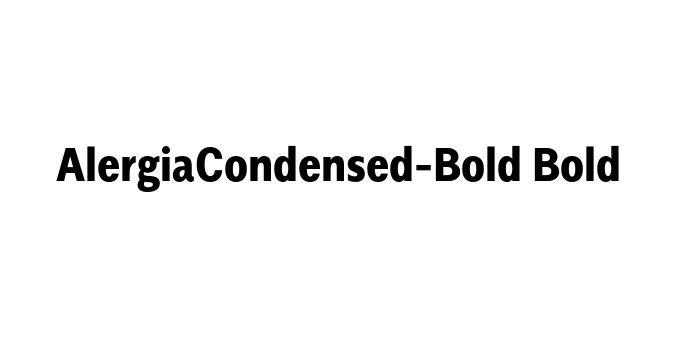
AlergiaCondensed-Bold Bold
Designed by Mateusz Machalski
Alergia Condensed Bold is a sophisticated sans-serif typeface crafted by the renowned designer Mateusz Machalski. As a key component of the expansive Alergia superfamily, this weight is characterized by its hybrid nature, blending geometric construction with subtle humanist influences. The Bold weight provides a robust visual density that ensures high visibility while maintaining the elegant, narrow proportions typical of condensed styles.
This font is specifically engineered for efficiency and impact in modern design environments. Its high-waisted capitals and distinct terminal cuts make it an exceptional choice for editorial design and high-end branding projects. Whether used in print or digital media, Alergia Condensed Bold offers a contemporary aesthetic that balances technical precision with a unique, artistic character, making it a favorite among professional graphic designers.
AlergiaCondensed-Bold Bold Best Uses
Perfect for magazine headlines and impactful cover titles where space is limited.
Ideal for creating strong, attention-grabbing hero sections and navigation menus.
Excellent for posters, billboards, and promotional materials that require a bold voice.
Suitable for modern corporate identities and logotypes looking for a technical yet human feel.